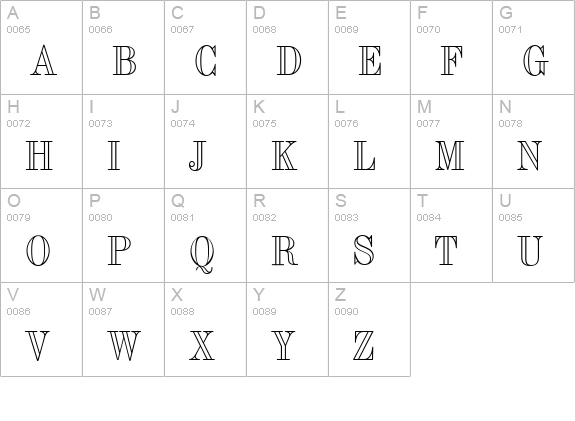
CgTorinoOpen Font Details
CgTorinoOpen is a modern and versatile font that combines elegance with readability. Its clean lines and balanced proportions make it suitable for a wide range of designs, from branding to editorial projects. This typeface is perfect for creating a sophisticated and professional look. What makes CgTorinoOpen even more appealing is that it is available for free download at FontsMarket.com. This means you can easily access this high-quality font without any cost, making it a valuable addition to your font collection. Don't miss out on the opportunity to enhance your designs with the timeless beauty of CgTorinoOpen.